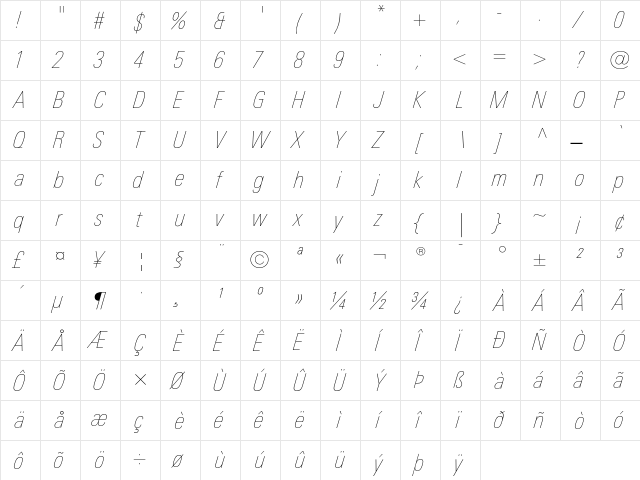
LinotypeUnivers CondUltraLightItalic
Design Context for LinotypeUnivers Typeface
LinotypeUnivers is a composed and adaptable typeface that performs quietly and consistently across a wide range of design contexts. Its italic angle brings a sense of urgency and motion to the letterforms. The delicate stroke weight brings airiness and refinement to layouts. The condensed width makes it efficient for tight spaces without sacrificing legibility.
Pro Tip: Try LinotypeUnivers for annotation and caption copy alongside an upright companion — the contrast in angle creates a dynamic but ordered typographic system.